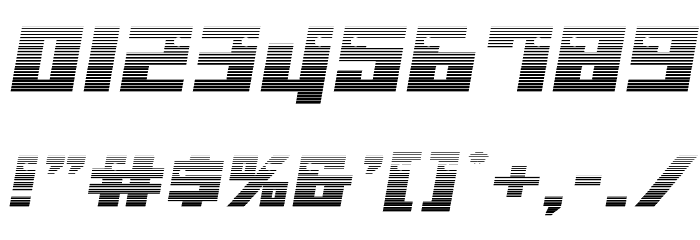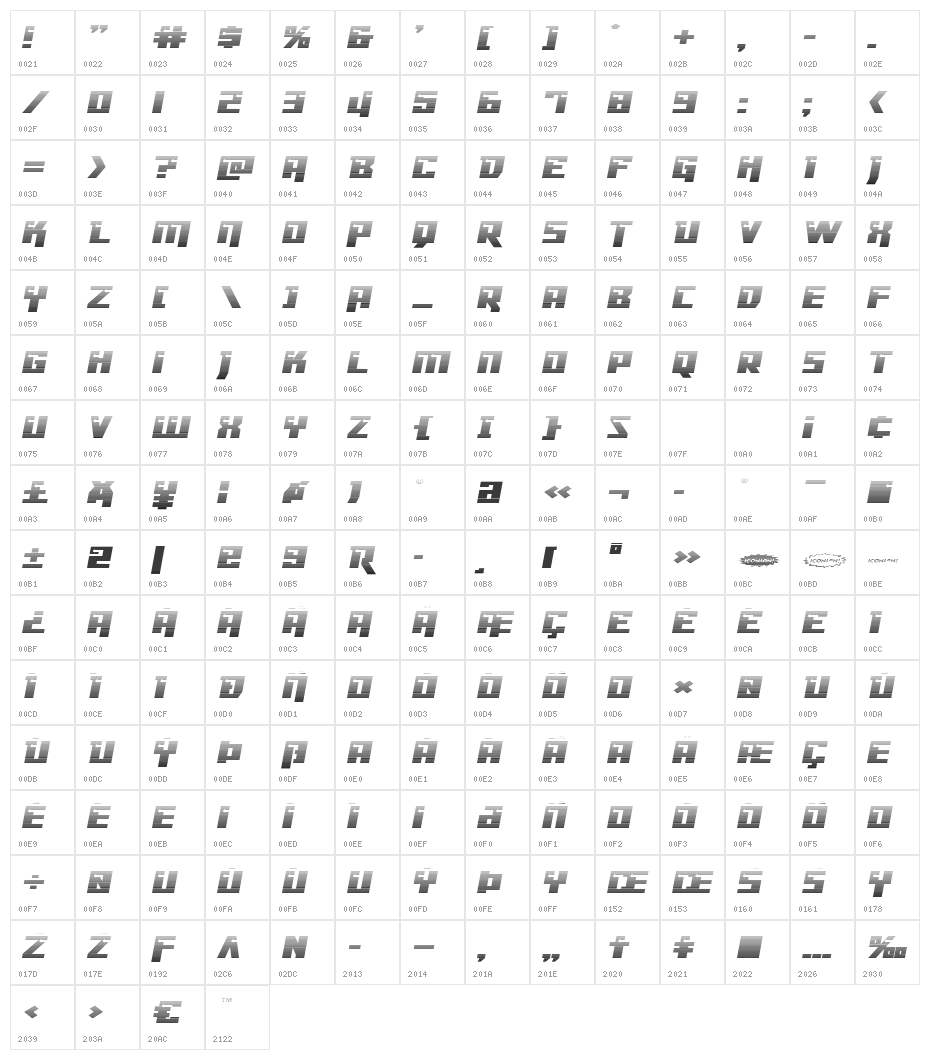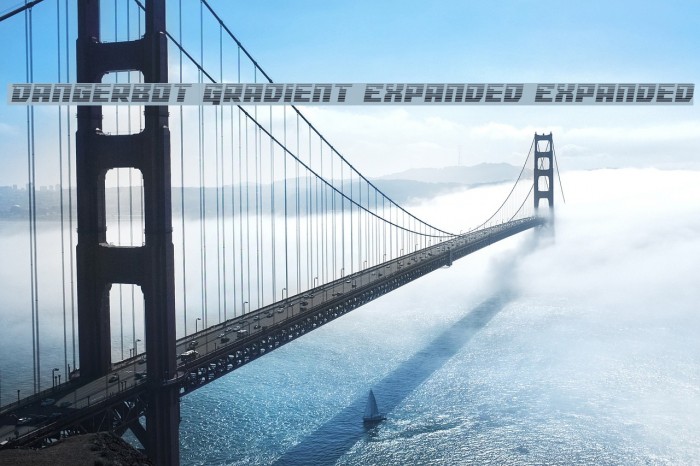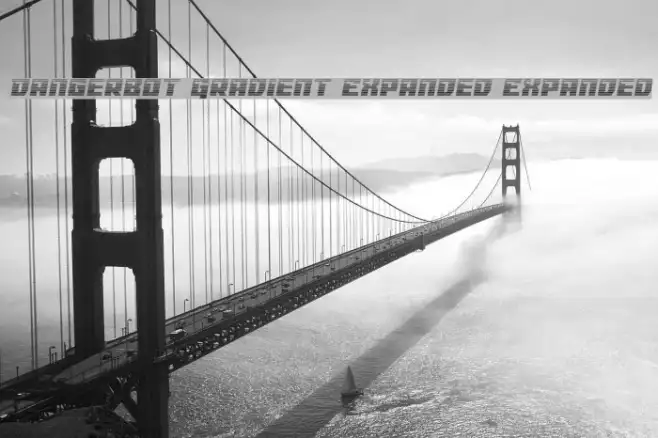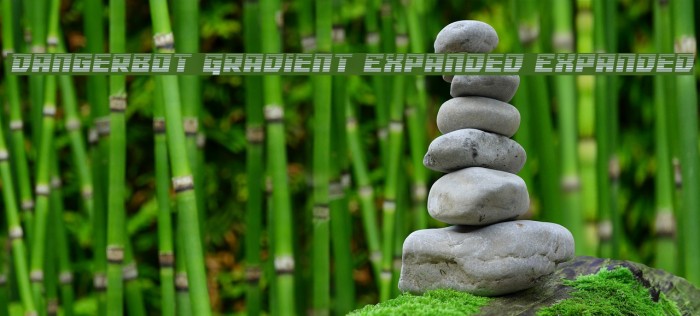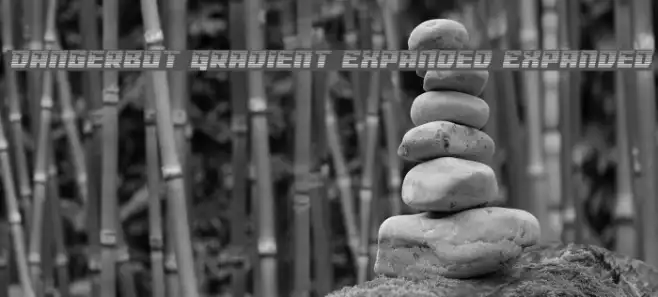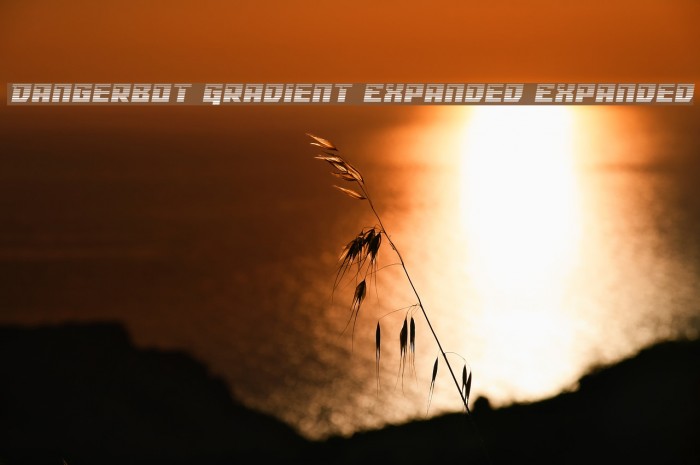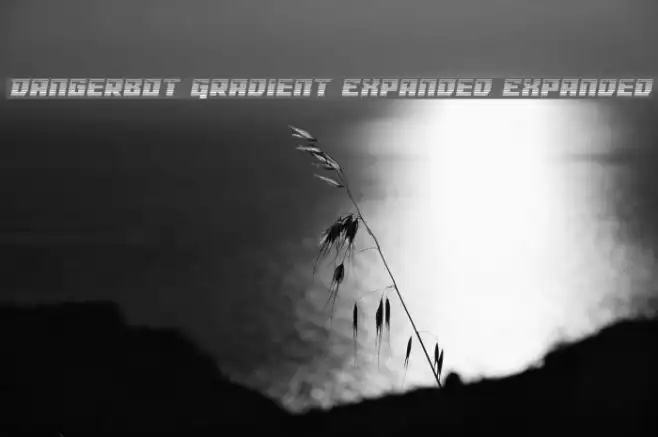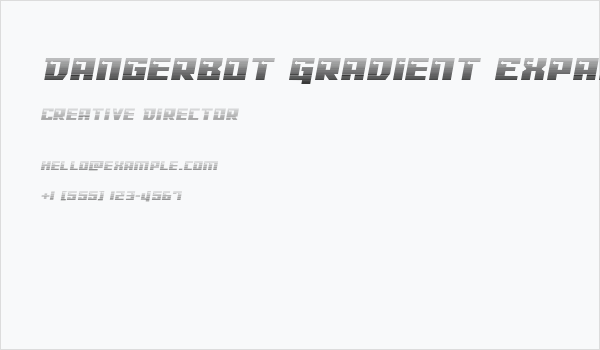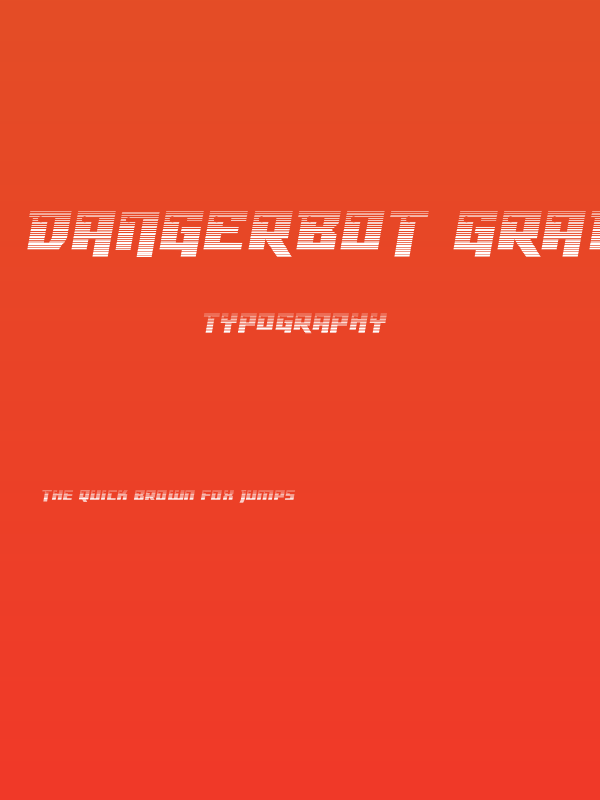
Dangerbot Gradient Expanded Font
Dangerbot Gradient Expanded Description
This font features a bold, futuristic design with a distinct gradient effect that gives it a dynamic and high-tech appearance. The characters are expanded and have a geometric structure, with sharp angles and a blocky aesthetic. The gradient lines within each character create a sense of movement and depth, making it stand out in any design. The uppercase and lowercase letters maintain a consistent style, while the numbers and special characters complement the overall look. This font is ideal for projects that require a modern and edgy feel.
| Proposed Projects | Ideal for technology branding, sci-fi posters, video game titles, and modern advertising. |